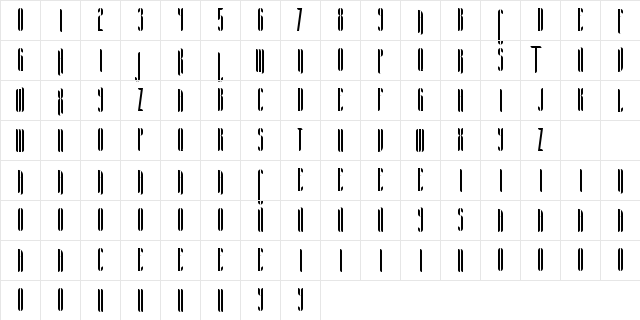
Aria Regular Font Preview
Aria Regular
Design Context for Aria Typeface
Aria is a composed and adaptable typeface that performs quietly and consistently across a wide range of design contexts.